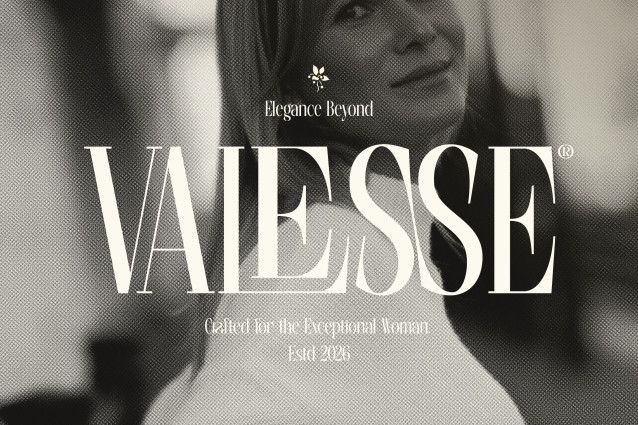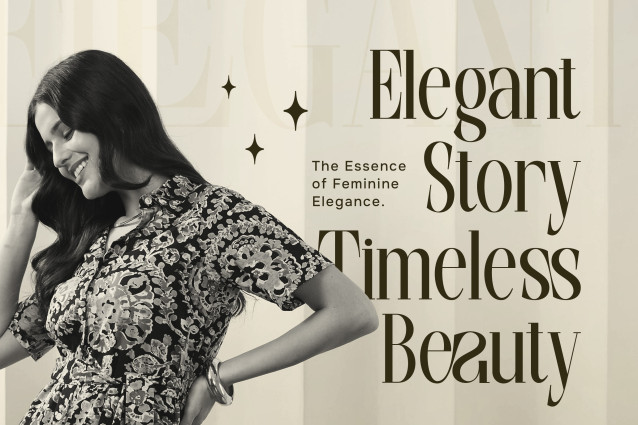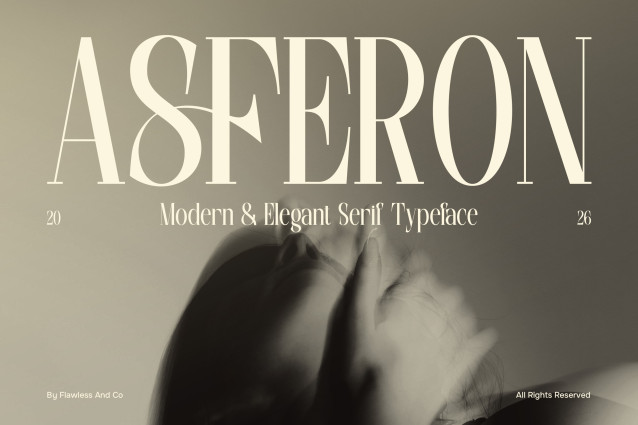
Asferon – Elegant Serif Font
Asferon is a modern elegant serif font featuring high-contrast strokes, refined proportions, and elongated letterforms. Its combination of thin hairlines, strong vertical stems, and carefully shaped serifs creates a sophisticated display style with a contemporary editorial character.
The uppercase letters feature dramatic contrast between thick and thin strokes, giving the typeface a distinctive visual rhythm. Curved forms are balanced with sharp serif details, while the extended proportions create an airy and refined appearance when used at larger sizes.